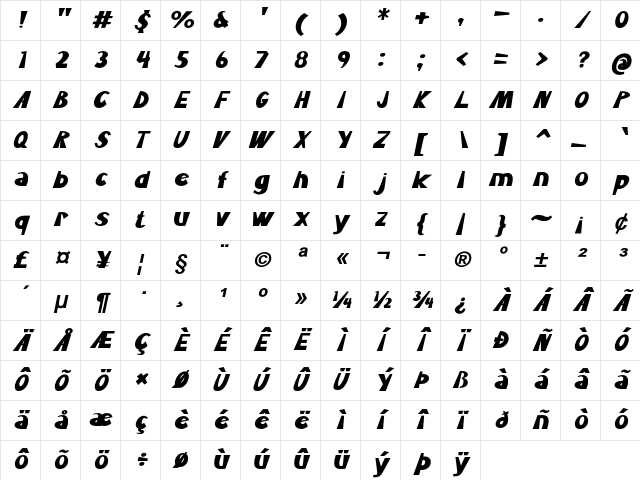
Terrier Bold Italic
Terrier Family
Terrier Bold Italic
Complete Terrier Bold Italic glyph index. Displaying only characters natively supported by Terrier Bold Italic font.
Design Context for Terrier
Terrier is a composed and adaptable typeface that performs quietly and consistently across a wide range of design contexts. The slanted form adds forward momentum and visual energy. Its bold stroke weight gives it real presence on the page.
Pro Tip: Use Terrier for emphasis, pull quotes, and subheadings where its slanted energy can add rhythm to the layout.